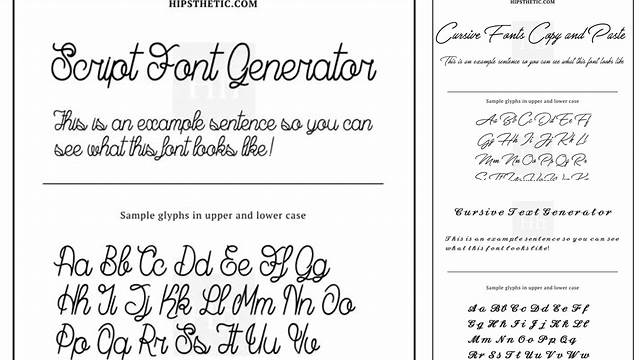
Free Cursive Calligraphy Fonts: Copy & Paste Guide
Hey there, design enthusiasts! Ready to spice up your projects with some stunning cursive calligraphy? We're diving into the world of free cursive calligraphy fonts, perfect for that elegant touch. Whether you're working on invitations, social media graphics, or just want to add some flair to your personal notes, these fonts are your secret weapon. Plus, we'll make it super easy – you can copy and paste these beauties wherever you need them! Let's get started!
Why Choose Cursive Calligraphy Fonts?
Cursive calligraphy fonts are like the ultimate upgrade for your text. They're all about sophistication, grace, and that handmade feel that makes everything look a little more special. They're not just fonts; they're statements! They communicate elegance, personality, and a touch of artistry. This is especially true when you're working on projects that need a premium feel. Think about wedding invitations. You want something that looks classy and reflects the importance of the event, right? Cursive calligraphy fonts offer the perfect solution. They're also great for creating visually appealing logos, branding materials, or even personal projects like scrapbooks and custom stationery. The flowing lines and unique letterforms add a level of detail and artistry that standard fonts just can't match. Also, these fonts have the power to transform a simple phrase into something memorable and visually striking. They are perfect for creating titles, headings, and quotes that immediately grab attention. Imagine a poster, a social media post, or a website banner. A well-chosen cursive font can be the key to making it stand out. These fonts aren't just for special occasions, either. They're versatile enough to be incorporated into everyday designs. From personalizing greeting cards to creating eye-catching email signatures, they add a touch of personality and charm to any project. The best part? There are tons of free options out there, so you don't have to break the bank to get that premium look. It is really a win-win!
When you incorporate free cursive calligraphy fonts, it's important to consider a few things. First, think about readability. While the fonts should be beautiful, they should also be easy to read, especially if you use them in long blocks of text. Always check the font's legibility at different sizes. Some fonts are designed more for display purposes, while others are suitable for body text. Also, consider the context of your design. Will the font fit the overall aesthetic you want to achieve? Does it match the style of your brand, or is it appropriate for the occasion? Choose a font that complements the design's theme. Contrast is also a valuable factor. If the font is too similar in color to the background, it may be challenging to read. So make sure there is enough contrast to make the text pop. Finally, don't be afraid to experiment! Play with different fonts and their styles to see what works best for you. Combining cursive fonts with other font styles can also create interesting visual effects. With a little creativity, you can elevate your projects and create designs that leave a lasting impression.
Top Free Cursive Calligraphy Fonts for Copy and Paste
Alright, guys, let's get to the good stuff! Here are some of the best free cursive calligraphy fonts that you can easily copy and paste. I've tried to include a variety of styles to give you lots of options. All of these are available for free download, so you can easily add them to your font library and start designing!
- Great Vibes: This font is all about elegance and a touch of vintage flair. It's perfect for wedding invitations, greeting cards, and any project that needs a classic feel. Its flowing curves and refined appearance make it a favorite. You can download it from many font websites and use it in your design projects.
- Dancing Script: As the name suggests, Dancing Script is a lively and playful font. It's excellent for creating a sense of fun and energy, making it perfect for things like party invitations or social media graphics. It has a friendly and approachable feel that makes it ideal for projects that require a touch of joy.
- Alex Brush: Alex Brush is known for its clean lines and sophistication. It is a great choice for logos and branding materials where a polished and professional look is desired. It has a timeless appeal and can be used in a variety of creative contexts.
- Satisfy: This font is a little more relaxed and casual, perfect for adding a touch of personality to your designs. It's great for quotes, headings, or any place where you want to grab attention. Its slightly imperfect strokes give it a handcrafted feel.
- Allura: Allura is a very elegant and flowing font that works well for longer pieces of text. Its readability makes it ideal for websites and articles. It has a modern yet refined appeal.
How to Use Cursive Calligraphy Fonts in Your Designs